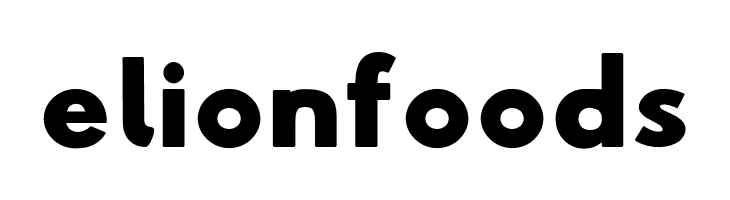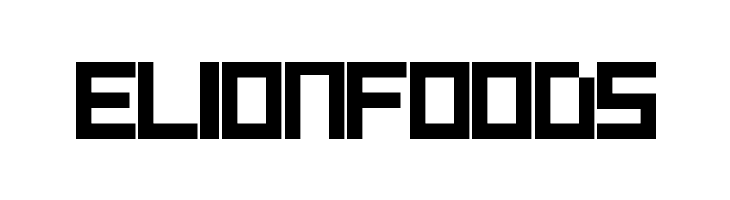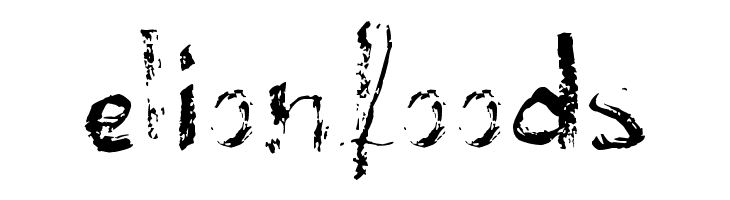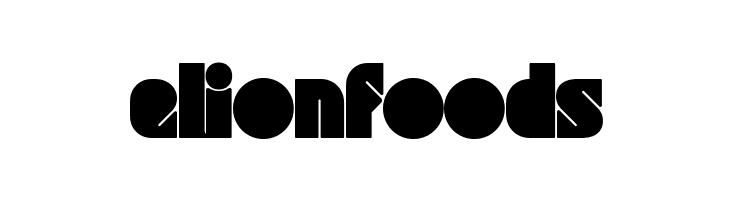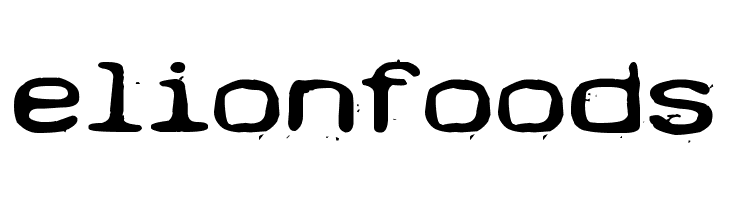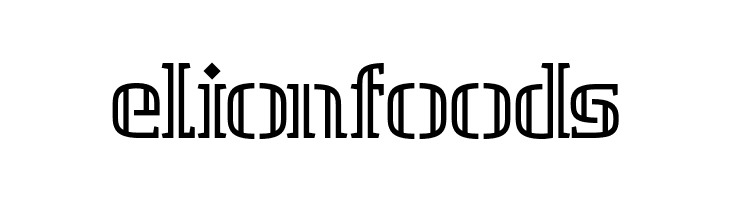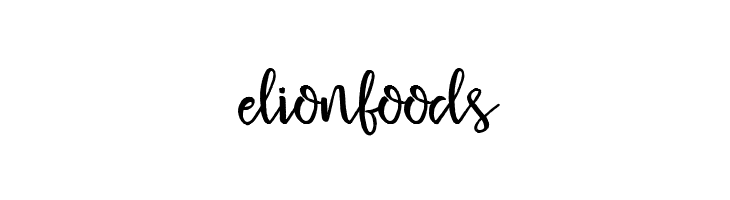
A vintage, typewriter-style font with a distressed, handcrafted appearance.
A vintage typewriter-style monospaced font with consistent stroke width and prominent serifs.
A bold, playful typeface with thick, rounded characters.
A vintage typewriter-style font with a distressed, nostalgic appearance.
A bold, geometric font with a futuristic and modern design.
A modern, segmented geometric font with bold, rounded shapes.
A futuristic and geometric font with sharp angles and smooth curves.
A bold, decorative font with vintage, western-inspired serifs and high contrast strokes.
A bold, geometric typeface with a digital, pixel-art style.
A bold, textured font with a hand-drawn, sketch-like appearance.
A distressed, grunge typeface with a hand-drawn, vintage aesthetic.
A bold, geometric font with angular shapes and solid forms.
A modern, extra condensed typeface with uniform stroke width and high legibility.
A playful, hand-drawn typeface with flowing strokes and exaggerated curves.
Bold, monospaced sans-serif font with geometric shapes and high clarity.
A vintage, monospaced typewriter-style font with a textured, distressed look.
A distressed, grunge-style font with a textured, vintage appearance.
A rugged, distressed font with a hand-drawn, vintage style.
A decorative typeface with celestial motifs and intricate details.
A modern, geometric font with a unique two-line style.
A bold, italic, and expanded sans-serif typeface with a modern and dynamic style.
A vintage typewriter-style font with a classic, worn look.
A playful, handwritten-style typeface with bold, irregular strokes.